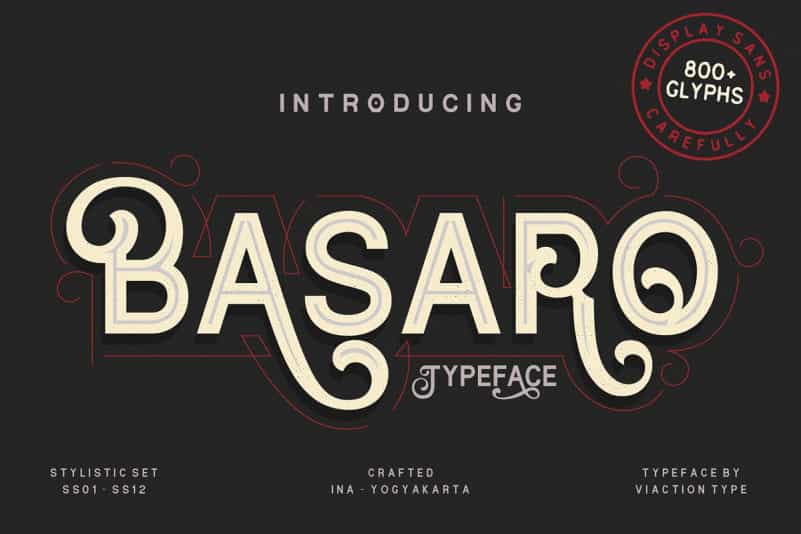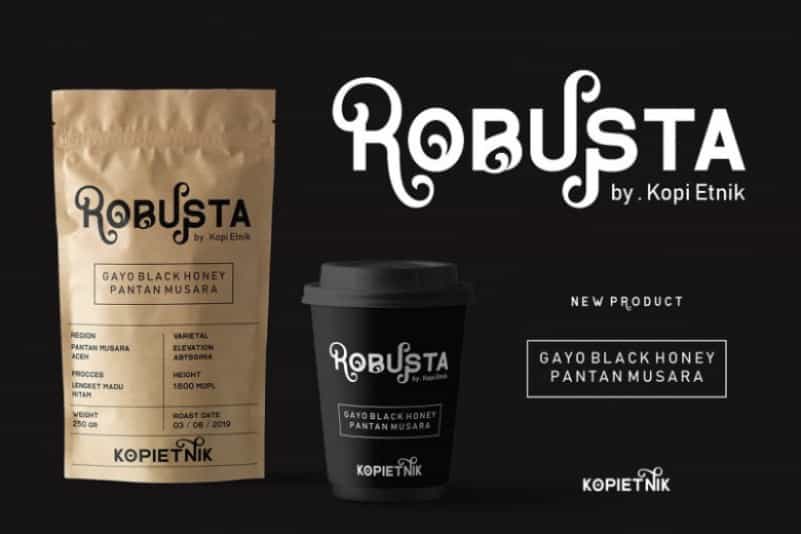
Basaro Font – It is a fresh, neat, and contemporary display font. This elegant and one-of-a-kind font can be used for you in most cases, hence your work will have that natural hand-drawn look!It is created and owned by the Viaction Type. Co.